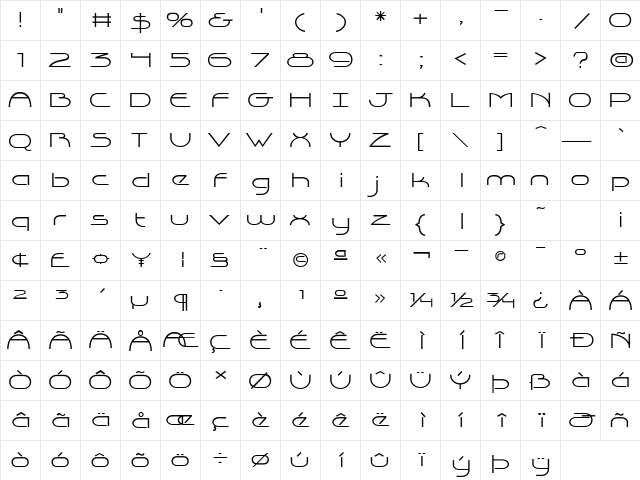
Capsule Regular
Design Context for Capsule Typeface
Capsule is a composed and adaptable typeface that performs quietly and consistently across a wide range of design contexts.